Behind the Scenes in Typeface Creation: “Tofu”
When there is text that cannot be displayed, a white square is displayed instead. The battle to eliminate this has been in progress for a long time, but many of you may have seen it. As its appearance is similar, this white square is often called “Tofu.” A different design setting can be made depending on the font, so it may not be a white square.
In the case of AXIS Font, design of “Tofu” is a white outlined square with an x-mark. During development, it can be displayed as a three-dimensional tofu icon that even comes with a plate.
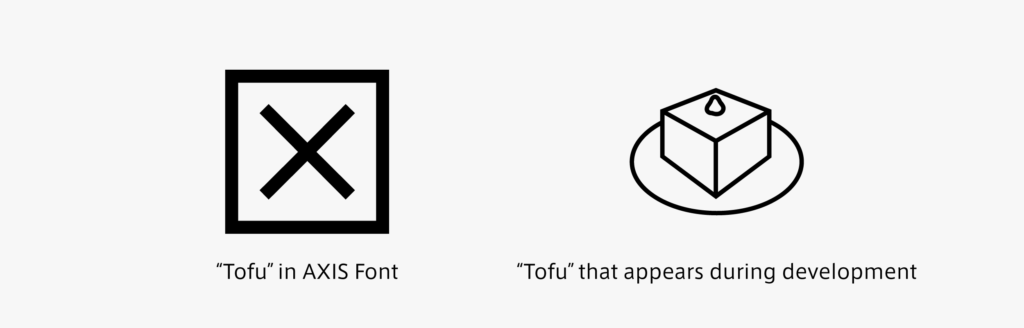
In fact, I mistook this icon for strawberry shortcake until a senior co-worker called it “Tofu.” If this tofu is cold tofu, ginger may be on top of it, not a strawberry.